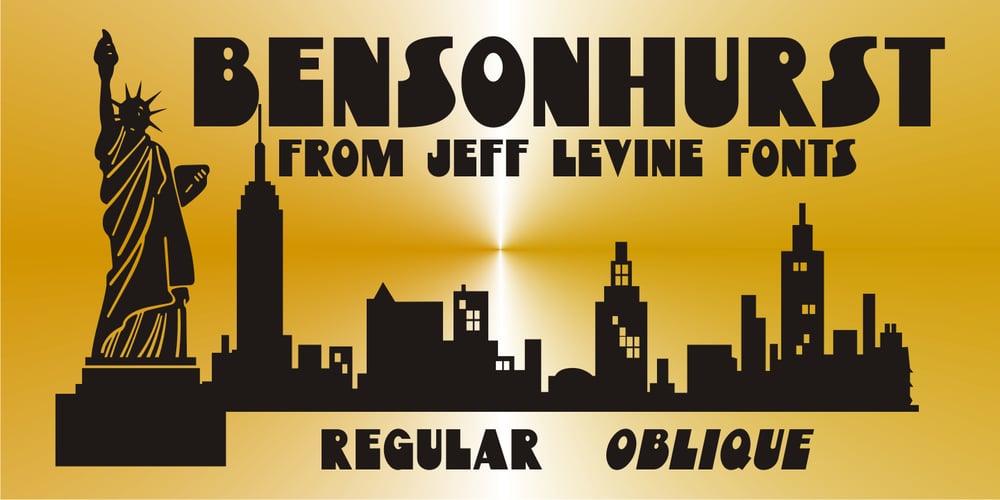
Bensonhurst JNL Font Family was designed by Jeff Levine and published by Jeff Levine. Bensonhurst JNL contains 2 styles and family package options. The model for Bensonhurst JNL was a 1930s-era hand-lettered WPA (Works Project Administration) poster for the play “Hell Bent For Heaven”. Although the basic style is a classic Art Deco “thick and thin” format, the design (in certain characters) starts to take on the feel of a 1970s revival style. With this in mind, Bensonhurst JNL is a bit of a hybrid between the 1930s and the 1970s.